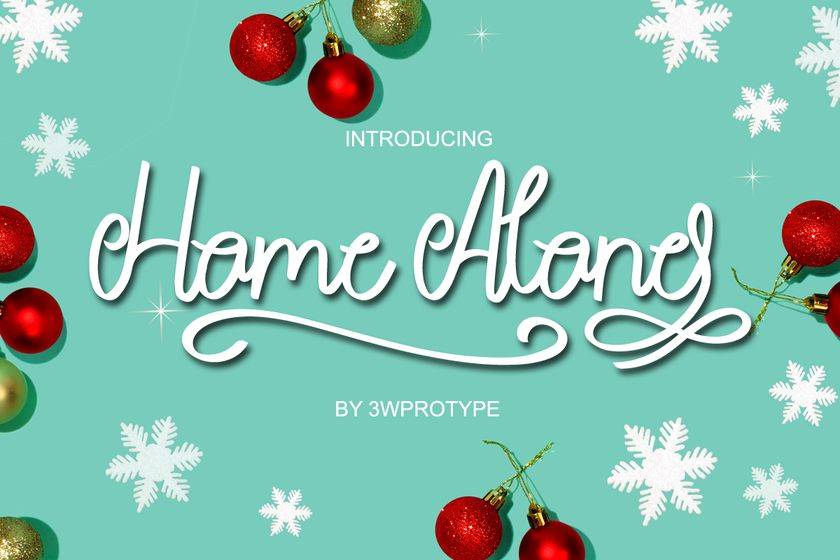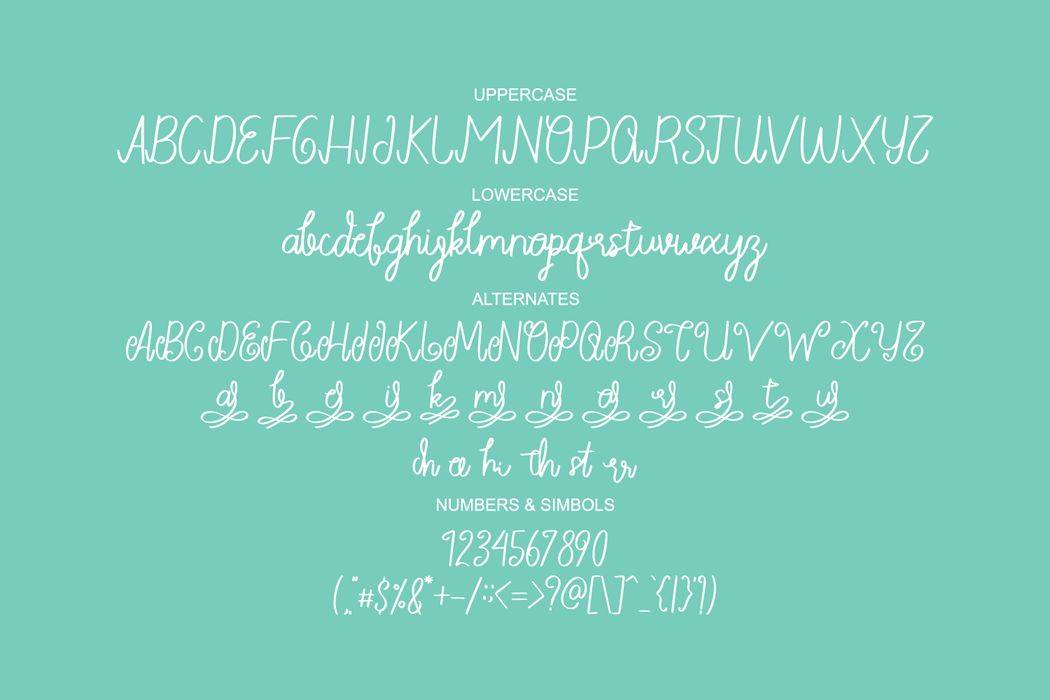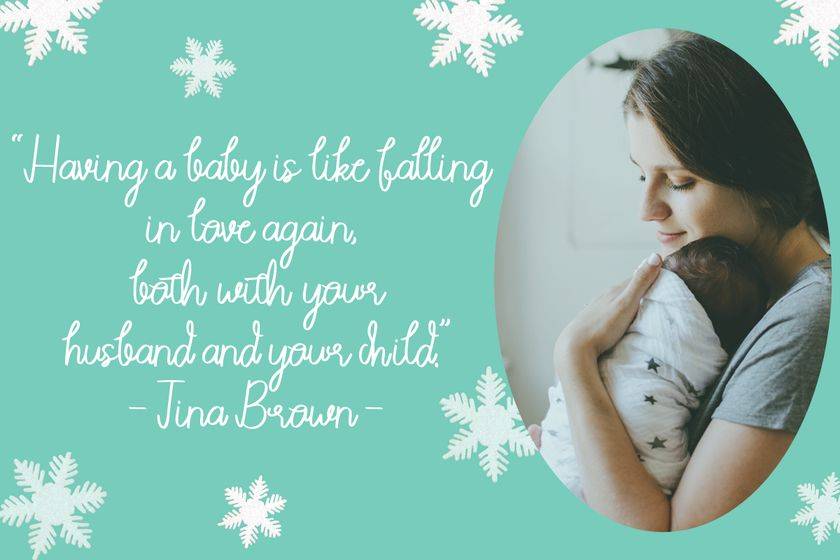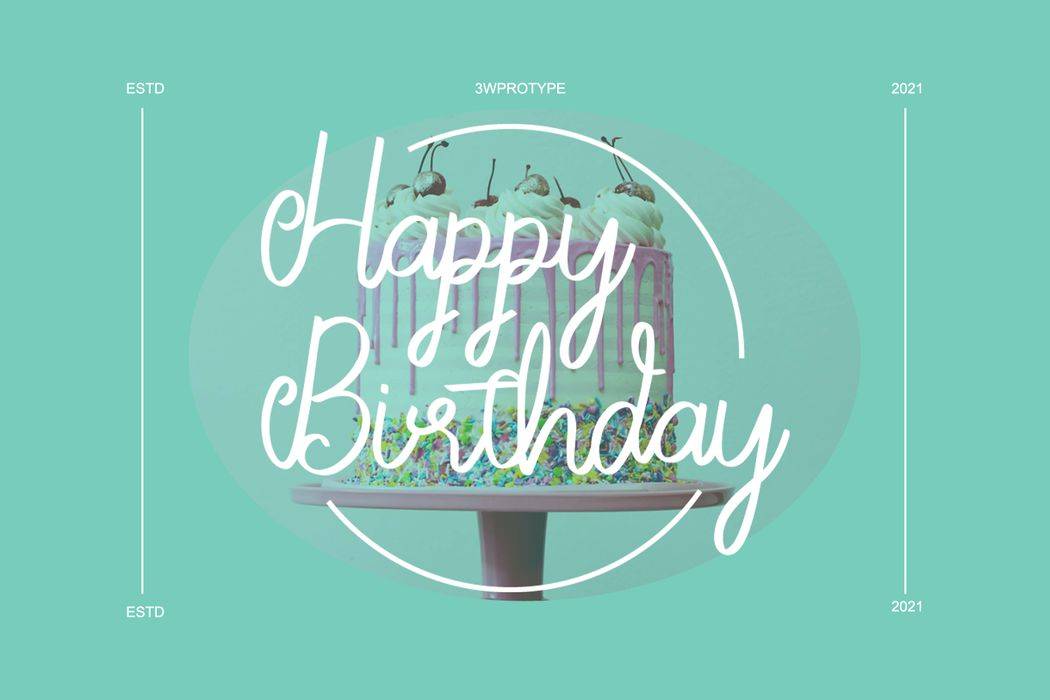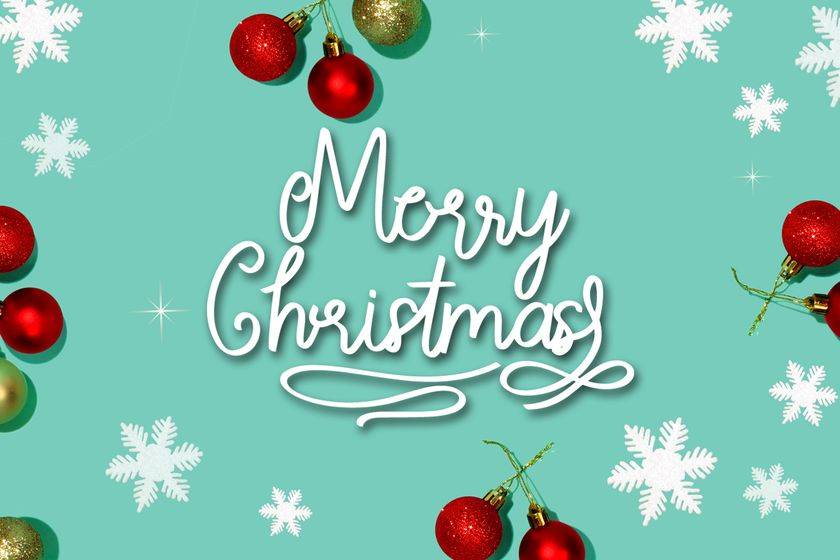
Home Alone Font is a delicate, handwritten script typeface that combines elegance with a casual, personal touch. Its slender, flowing strokes and slight variations in line thickness give it an airy, sophisticated feel, making it ideal for branding, invitations, and creative projects that need a warm, stylish, and approachable aesthetic. This font works beautifully in headlines and decorative text where a refined yet natural handwritten look is desired.
Home Alone Font
About Home Alone Font
| Font family | Home Alone Font |
| Designer | erik studio |